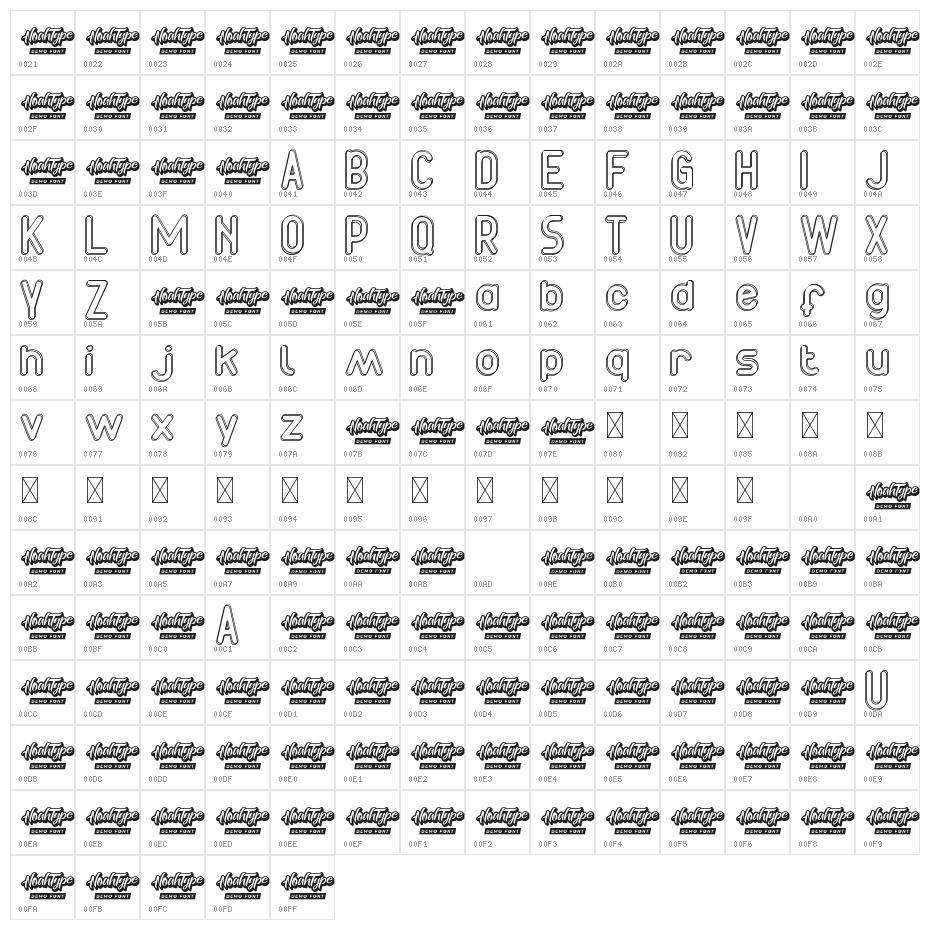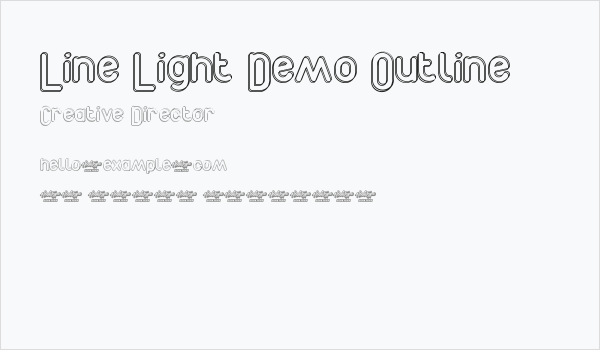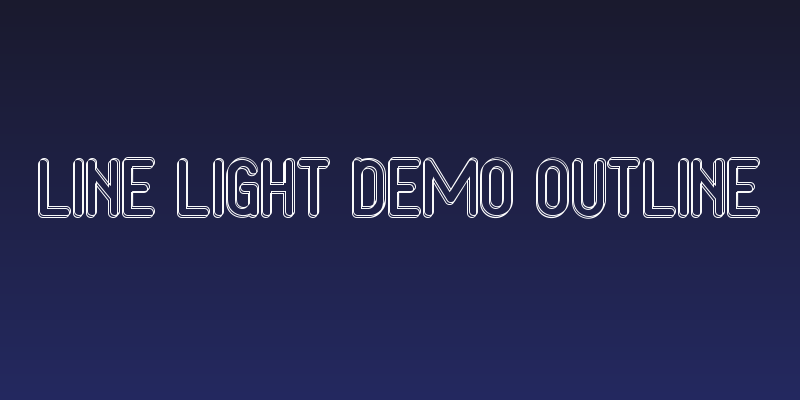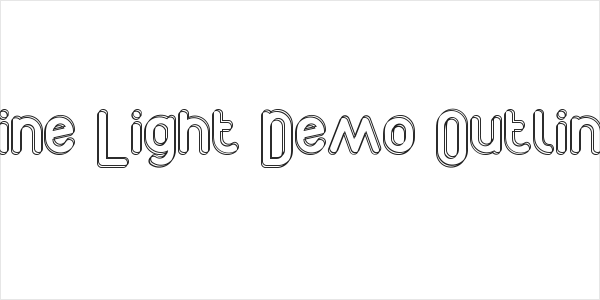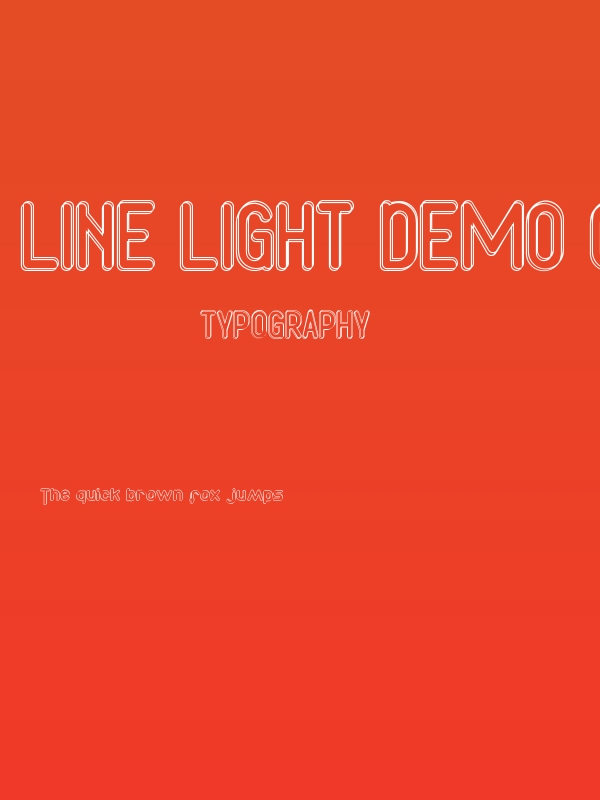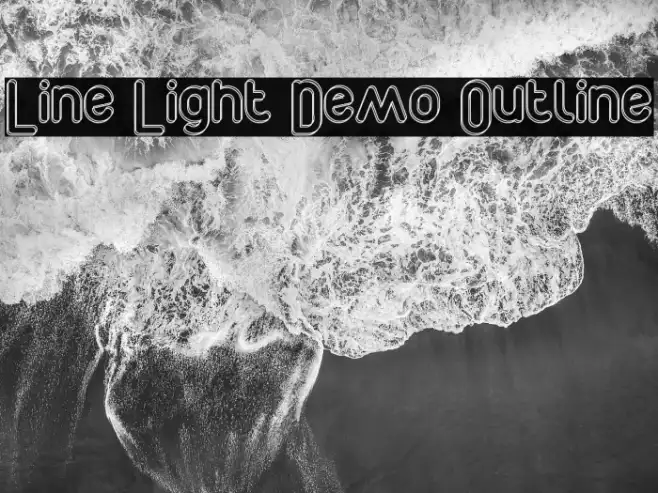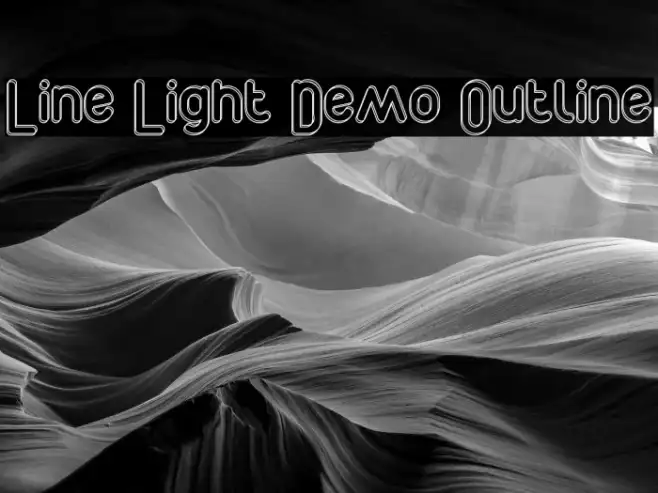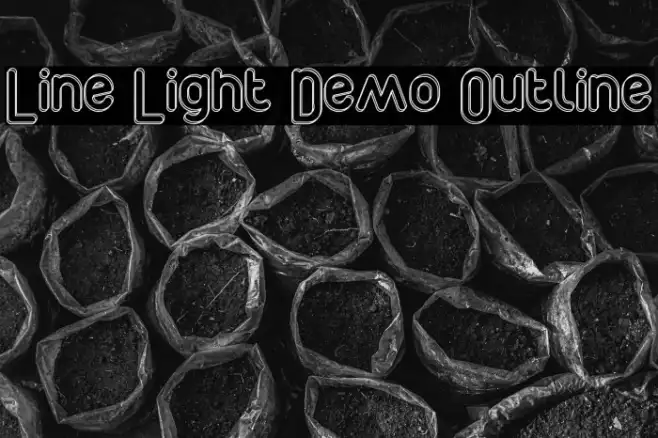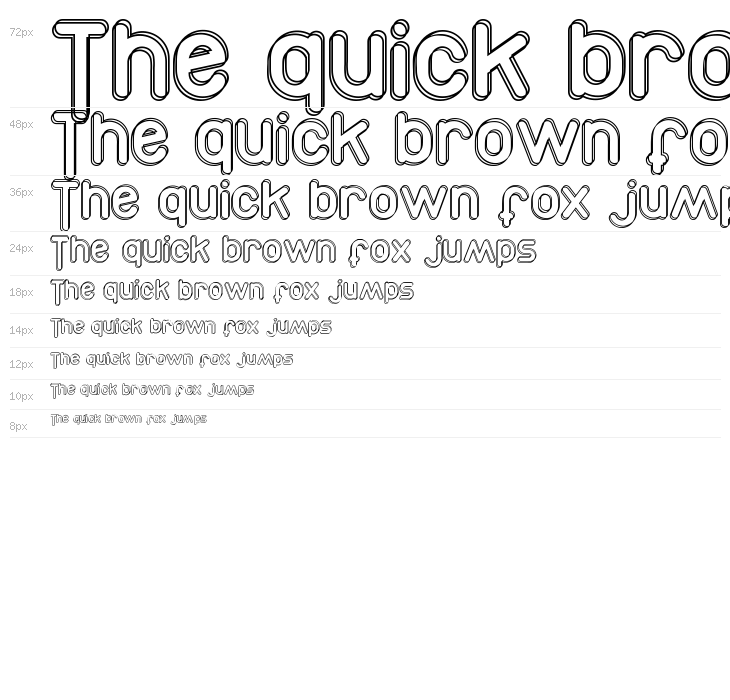
Line Light Demo Outline Font
Line Light Demo Outline Description
This font features a modern and playful outline style, characterized by its hollow, double-line structure. The uppercase and lowercase letters maintain a consistent width, creating a uniform appearance. The rounded edges and smooth curves give it a friendly and approachable feel. The font's design is clean and minimalistic, making it suitable for a variety of creative applications. Its unique outline style adds a touch of elegance and sophistication, while still being easy to read. This font is perfect for projects that require a contemporary and stylish look.
| Proposed Projects | Ideal for branding, posters, headlines, and creative design projects that require a modern and stylish touch. |